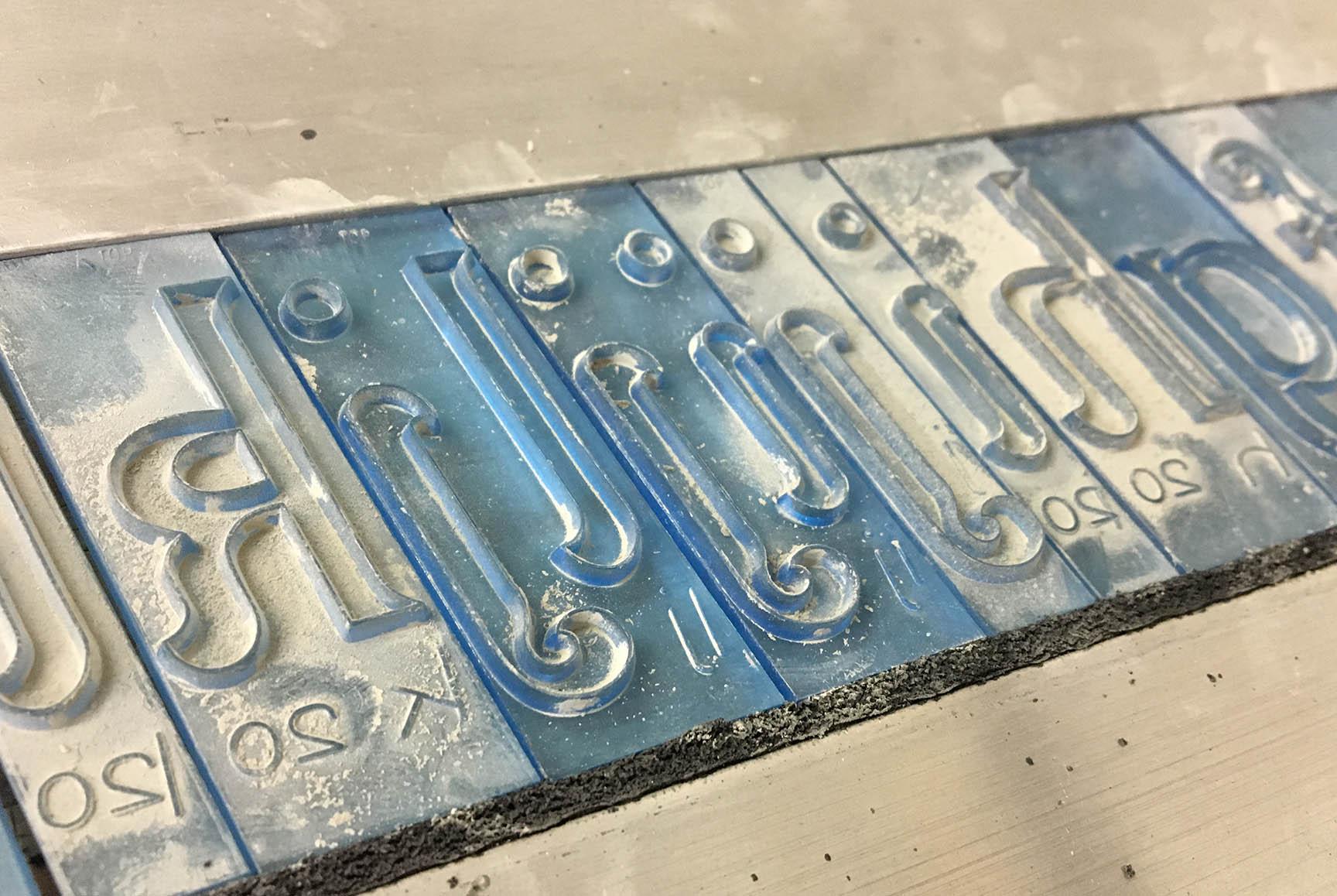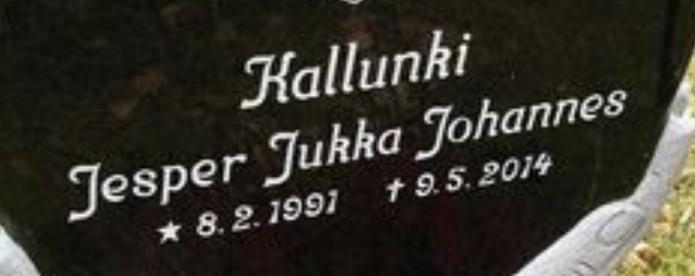
Hello, yes, this is a memorial industry version of an old wood-type alphabet, created into a stencil press alphabet by the PALL Corporation under an unknown name. It was later made available by the PMD Company under their “Cutrite” line of plastic stencil press alphabets under the name “Fancy Roman”, and has been digitized in the Gerber software under the name “Sandblast I Acct. A.K. Rev. B”, but that is the only known digital version.